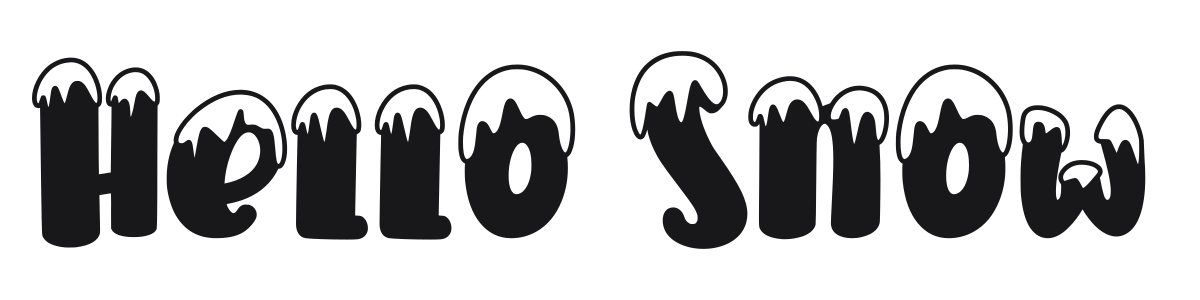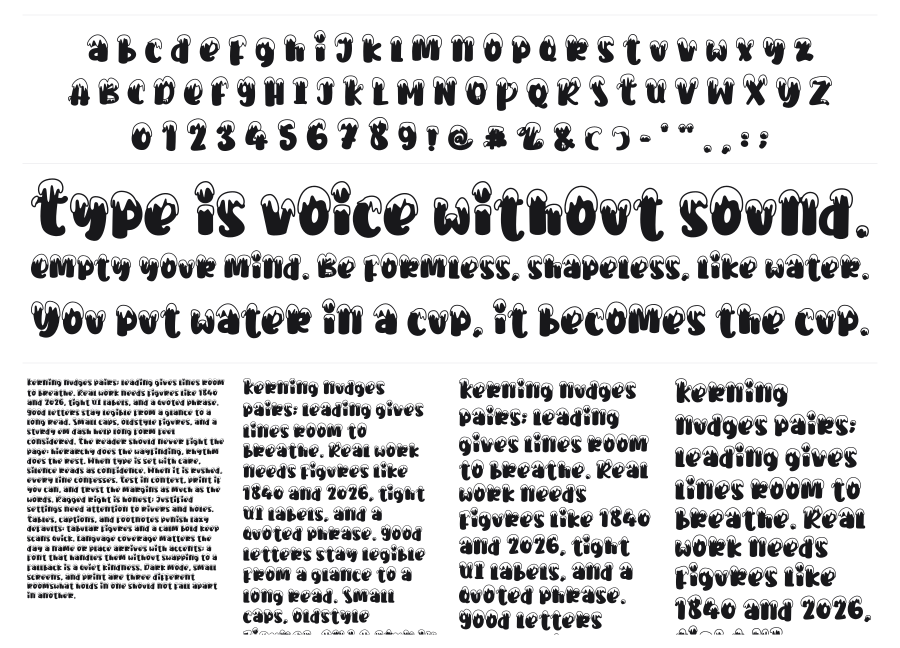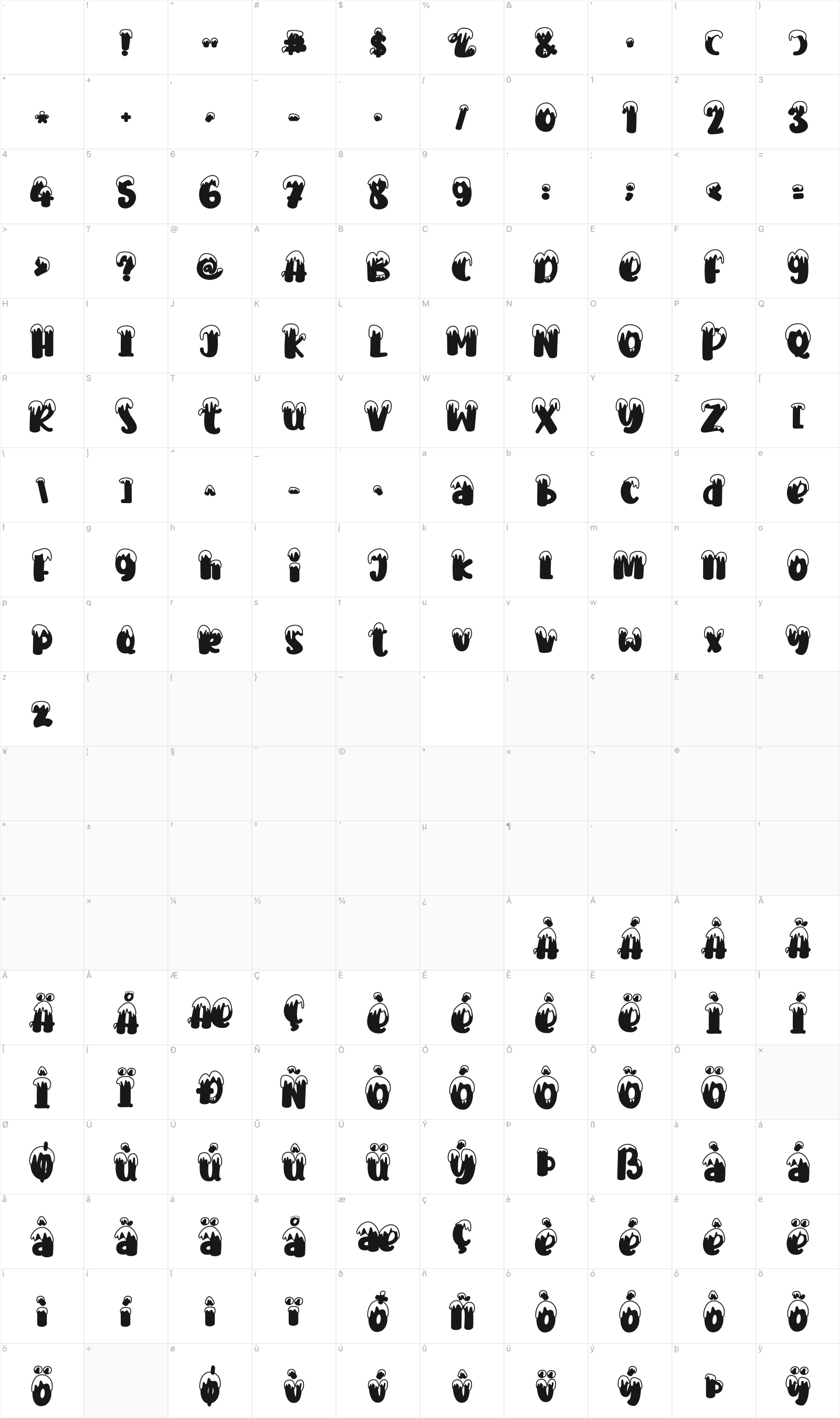
Hello Snow
Hello Snow is a bold, bubbly display font where every character is topped with a thick illustrated snow cap. The rounded, cartoon-like base forms lean into a cheerful holiday personality without feeling generic. Best used large, on seasonal posters, greeting cards, or festive packaging.